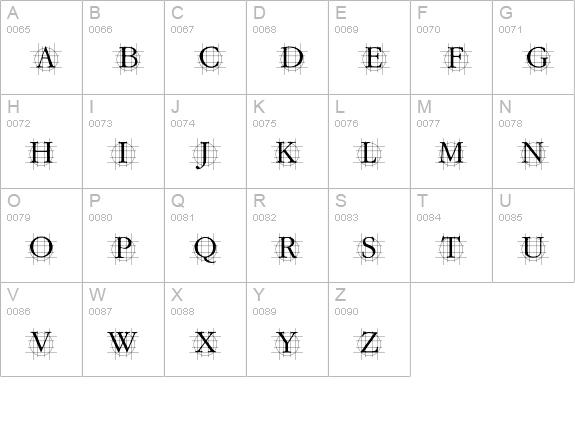
GrafCirculum Font Details
GrafCirculum font is a modern and stylish typeface that exudes sophistication and creativity. With its clean lines and unique design elements, this font is perfect for a wide range of projects, from branding to editorial design. The versatility of GrafCirculum font makes it a great choice for both print and digital applications. What sets GrafCirculum font apart is not only its impeccable design, but also the fact that it is completely free to download. Yes, you read that right - you can get your hands on this stunning font without spending a penny. Simply head over to FontsMarket.com and start using GrafCirculum font in your projects today. Don't miss out on this amazing opportunity to enhance your designs with a high-quality, free font like GrafCirculum.